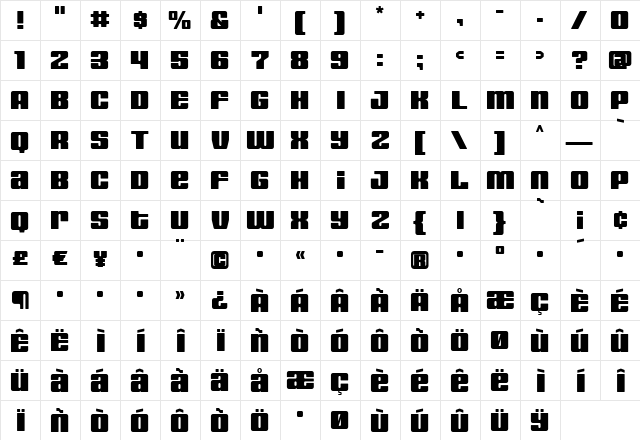
HOUSE3009 Black
Design Context for HOUSE3009 Typeface
HOUSE3009 is a composed and adaptable typeface that performs quietly and consistently across a wide range of design contexts.